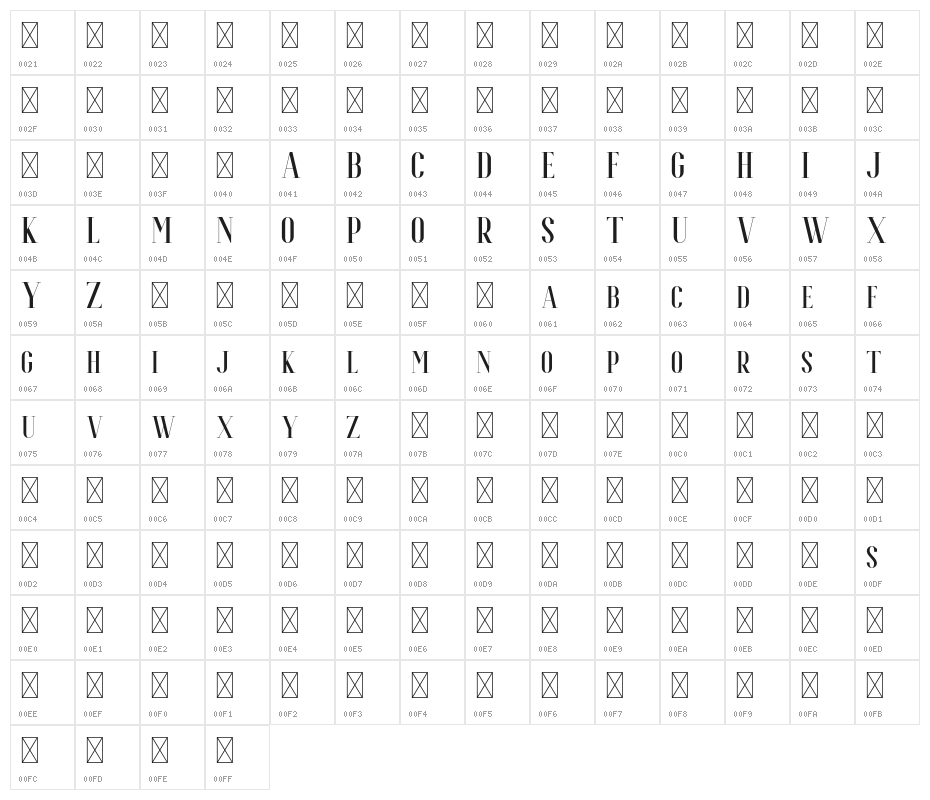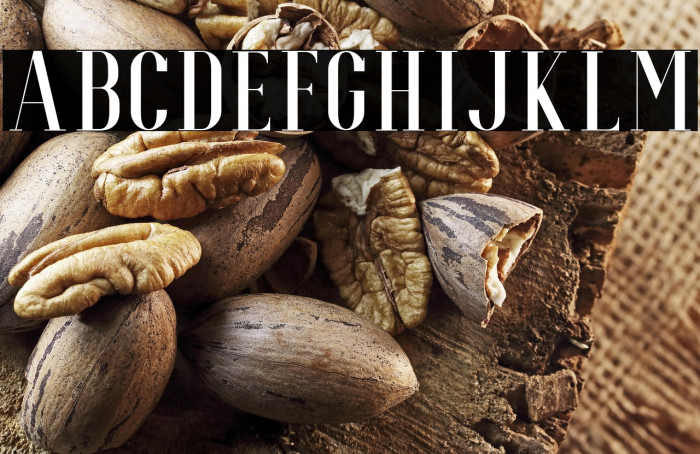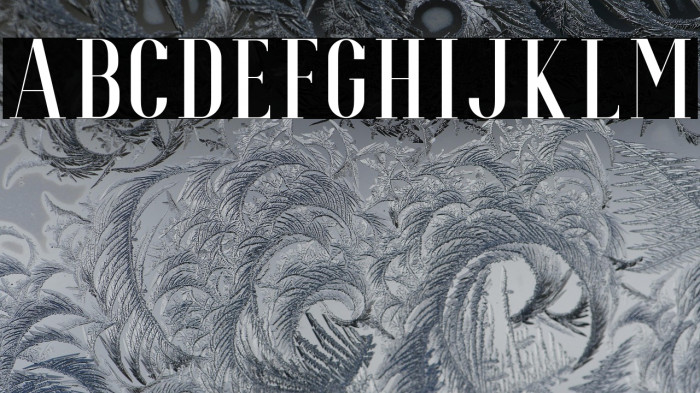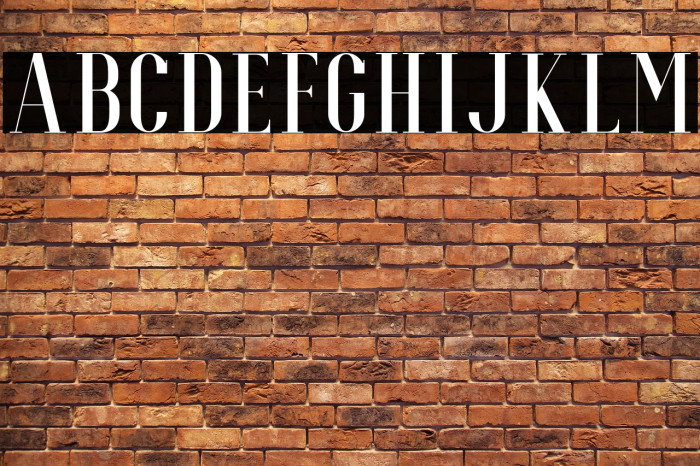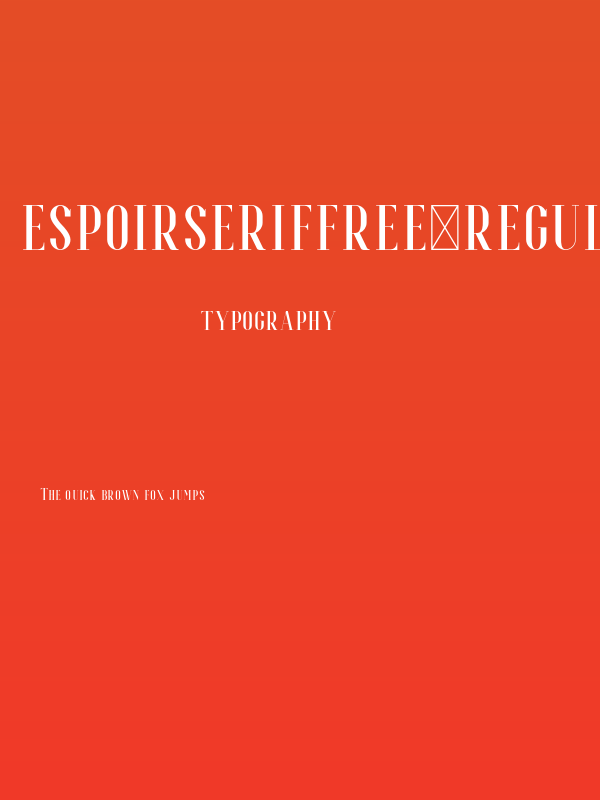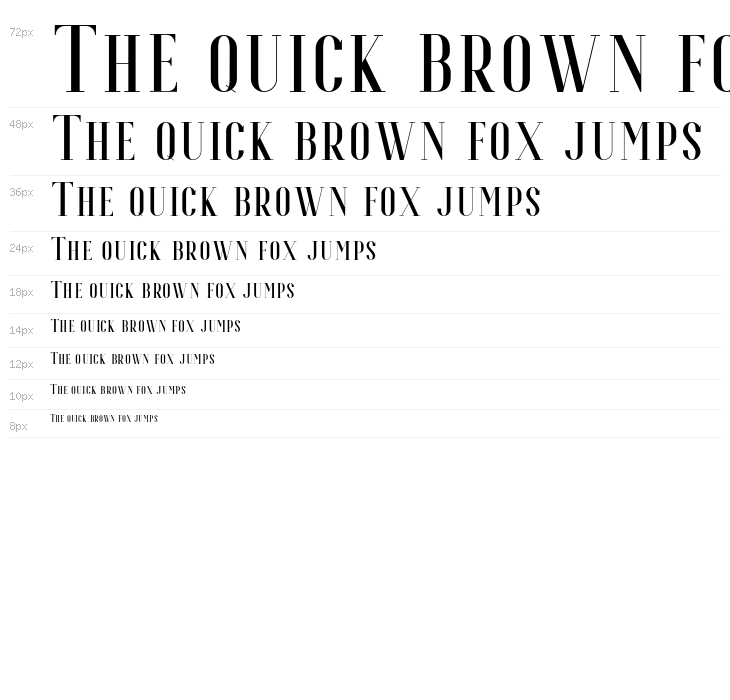
EspoirSerifFree-Regular Font
EspoirSerifFree-Regular Description
This font features a classic serif style with high contrast between thick and thin strokes, giving it an elegant and sophisticated appearance. The uppercase letters are tall and narrow, with sharp serifs that add a touch of formality. The overall design is clean and precise, making it suitable for both modern and traditional applications. The font's structure is well-balanced, with consistent spacing that enhances readability. Its refined aesthetic makes it ideal for use in high-end branding, editorial design, and luxury packaging.
| Proposed Projects | Perfect for luxury branding, editorial layouts, wedding invitations, and high-end packaging. |